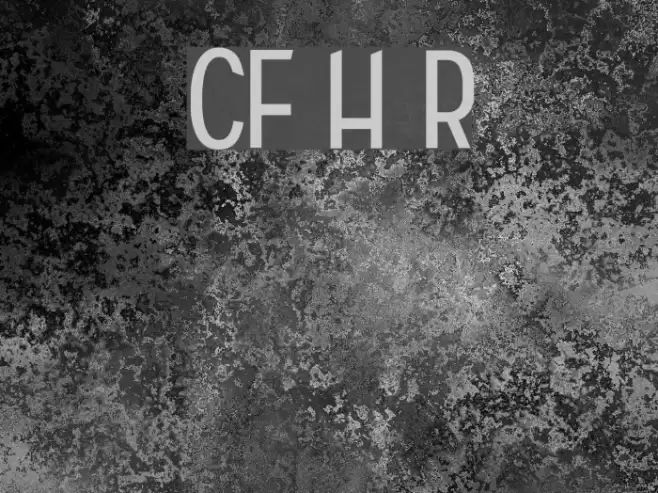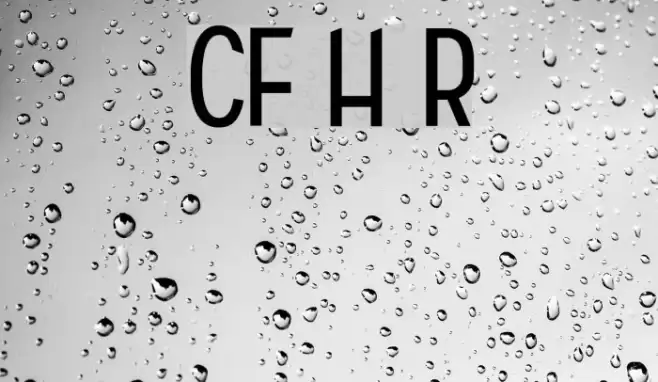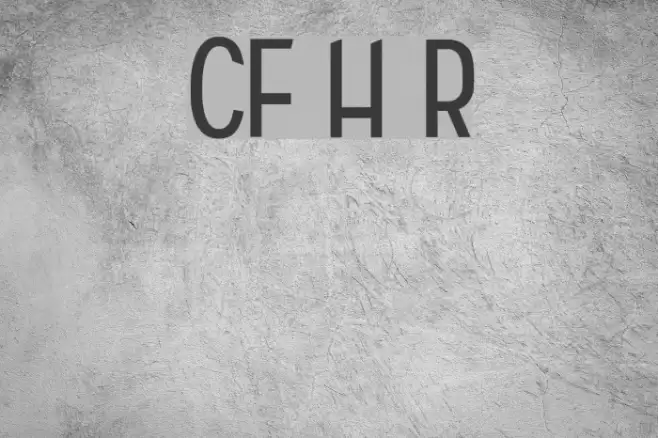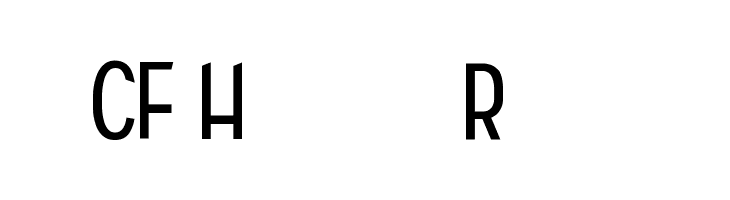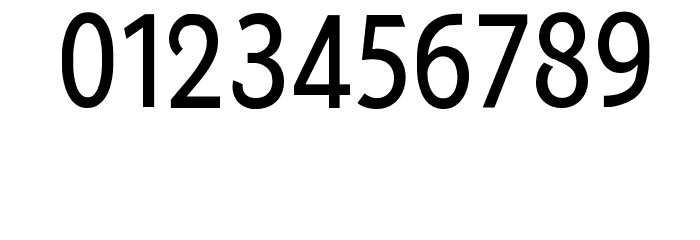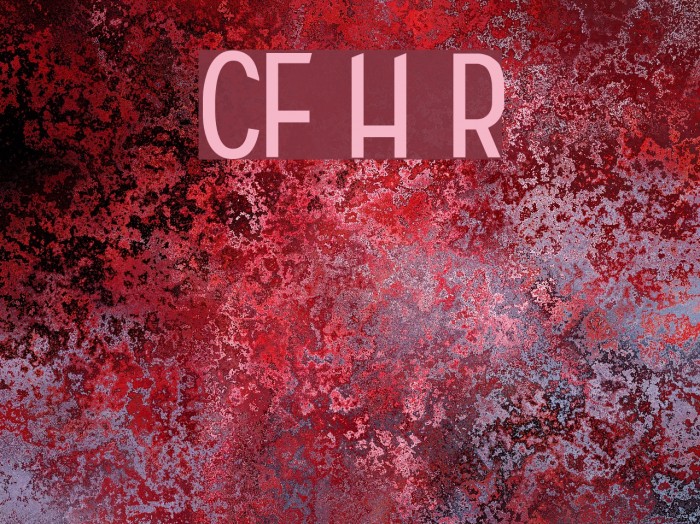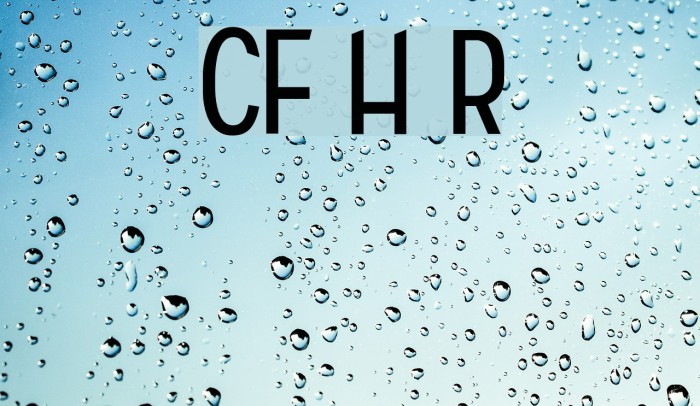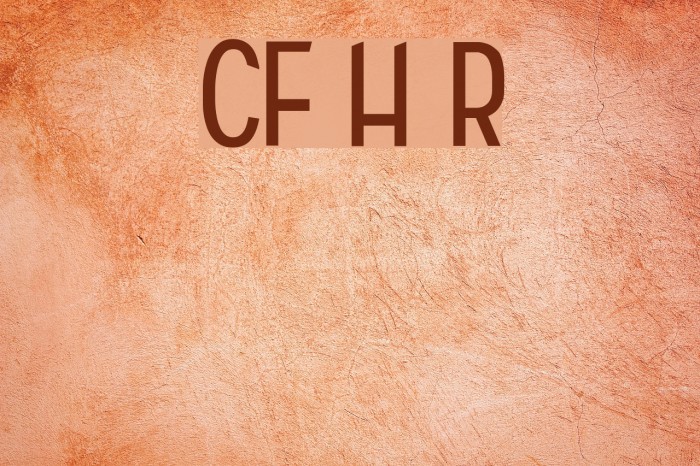
CF Historia Regular Font
CF Historia Regular Description
This typeface features a clean and modern sans-serif design with uniform stroke widths, giving it a sleek and contemporary appearance. The characters are well-proportioned, with a slightly condensed form that enhances readability while maintaining a stylish aesthetic. The uppercase letters are bold and assertive, making them ideal for headlines and titles. The numerals are clear and distinct, ensuring they stand out in any context. Overall, this font exudes a professional and polished look, suitable for a variety of design applications.
A modern, clean sans-serif font with uniform strokes and a slightly condensed form from Uncategorized fonts.
- Proposed Projects: Ideal for branding, advertising, web design, and editorial layouts.